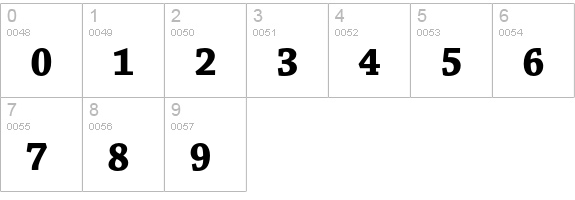
Chaparral Pro Bold Caption Font Details
Chaparral Pro Bold Caption is a strong, high-contrast variant in the Chaparral typeface family \xE2\x80\x94 well suited to headlines, attention-grabbing titles, and strong calls-to-action.
Chaparral Pro Bold Caption font is a bold and striking typeface that exudes confidence and elegance. Its clean lines and sharp edges make it perfect for making a statement in your designs. Whether you're creating eye-catching headlines or emphasizing important information, this font will ensure that your message stands out. What's even better is that Chaparral Pro Bold Caption font is available for free download at FontsMarket.com. You can easily access this versatile font and incorporate it into your projects without any cost. Don't miss out on this opportunity to enhance your designs with the bold and captivating Chaparral Pro Bold Caption font.